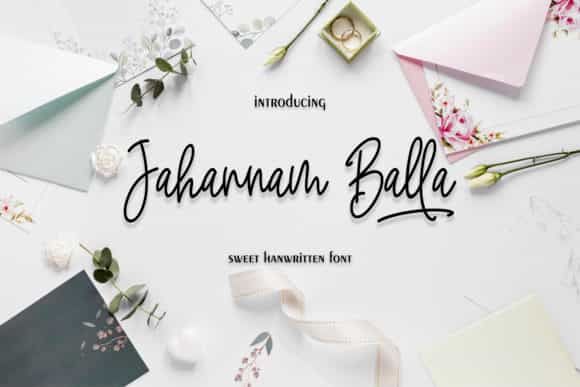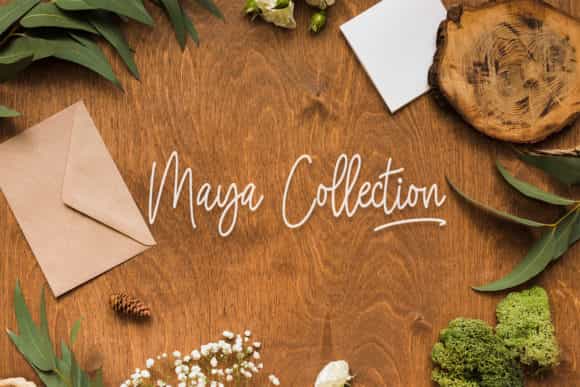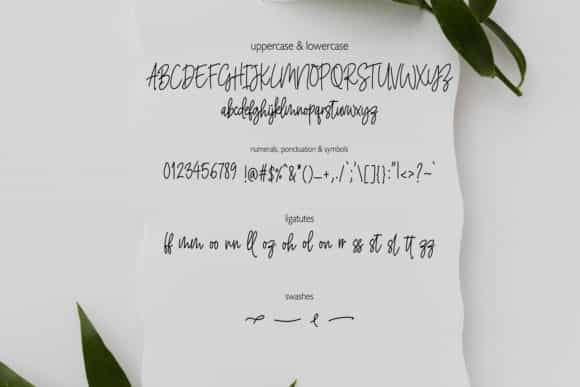
Discover Jahannam Balla Handwritten Font, part of the Commercial Handwritten Monoline collection—a versatile and unique font perfect for adding a personal touch to your projects. Download it for free and enjoy crafting designs with style, from invitations to social media posts. This font is available exclusively for personal use, giving you the freedom to create without limits. Unlock your creativity with Jahannam Balla Handwritten Font today!
Meet Jahannam Balla. A hand lettered script font that exudes an genuine vibe. Fall in love with its authenticity as you use it to craft wedding invitations, stationery art pieces engaging social media posts and adorable greeting cards.